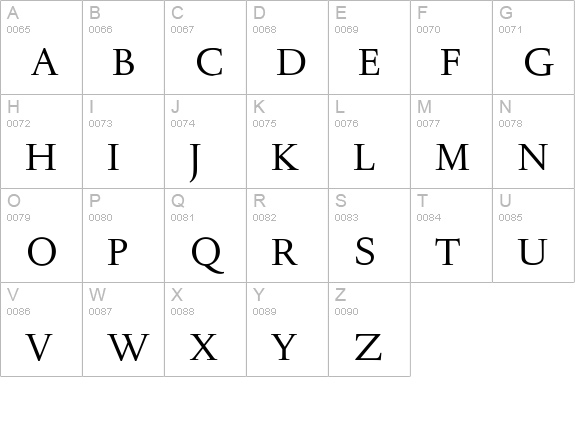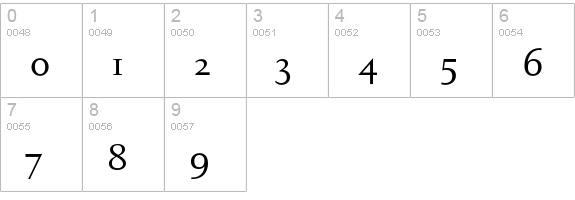
DTL Romulus ST Font Details
The DTL Romulus ST font is a stunning and versatile typeface that exudes elegance and sophistication. With its classic serifs and clean lines, this font is perfect for adding a touch of sophistication to any project. Whether you're designing a logo, creating a brochure, or working on a website, the DTL Romulus ST font is sure to make a statement. What's even better is that this font is completely free to download! You can easily access the DTL Romulus ST font at FontsMarket.com, where you can download it and start using it in your projects right away. Don't miss out on this fantastic opportunity to enhance your designs with the timeless beauty of the DTL Romulus ST font. Download it today and see the difference it can make in your work!